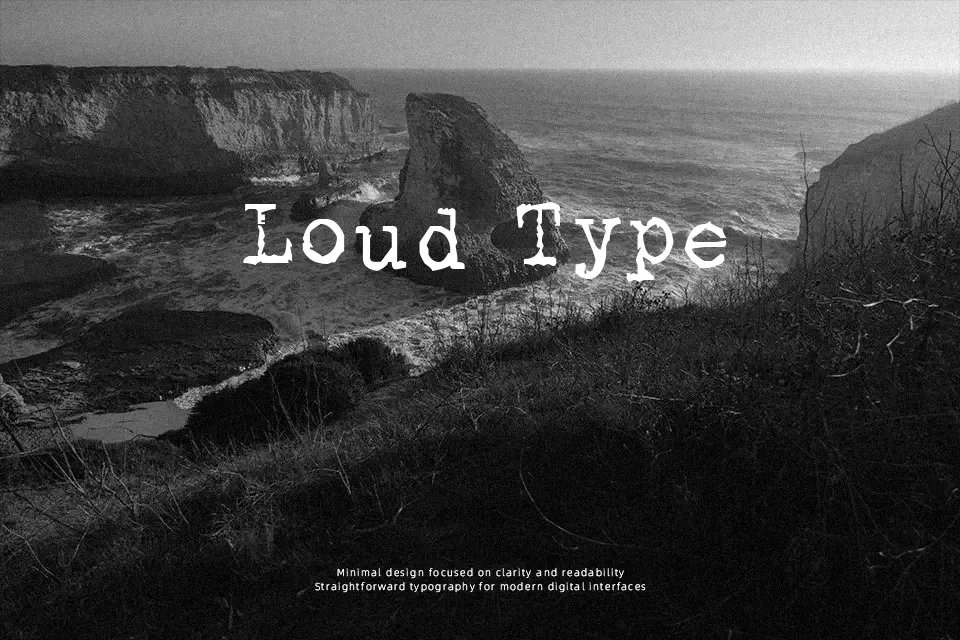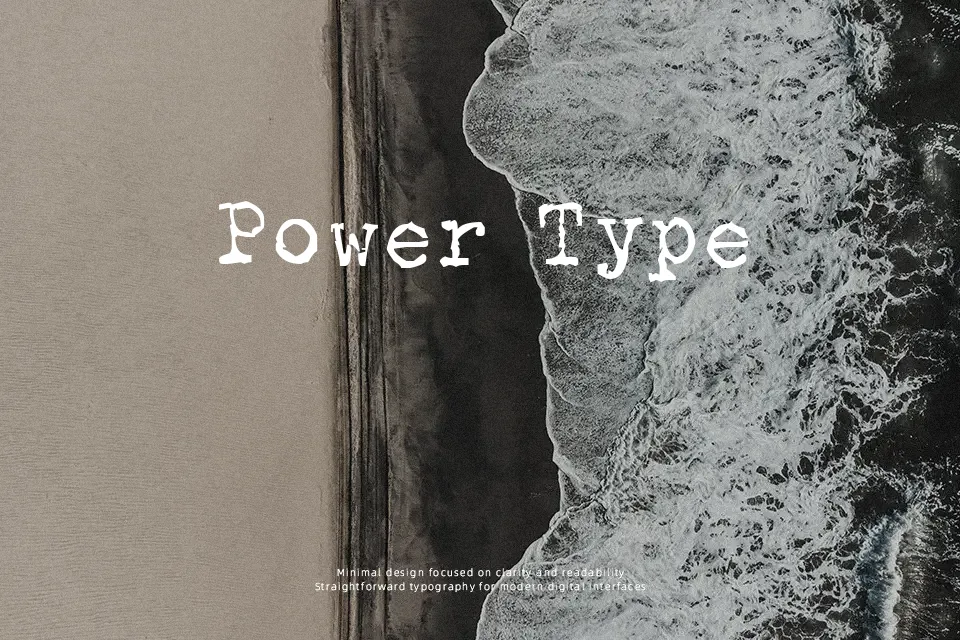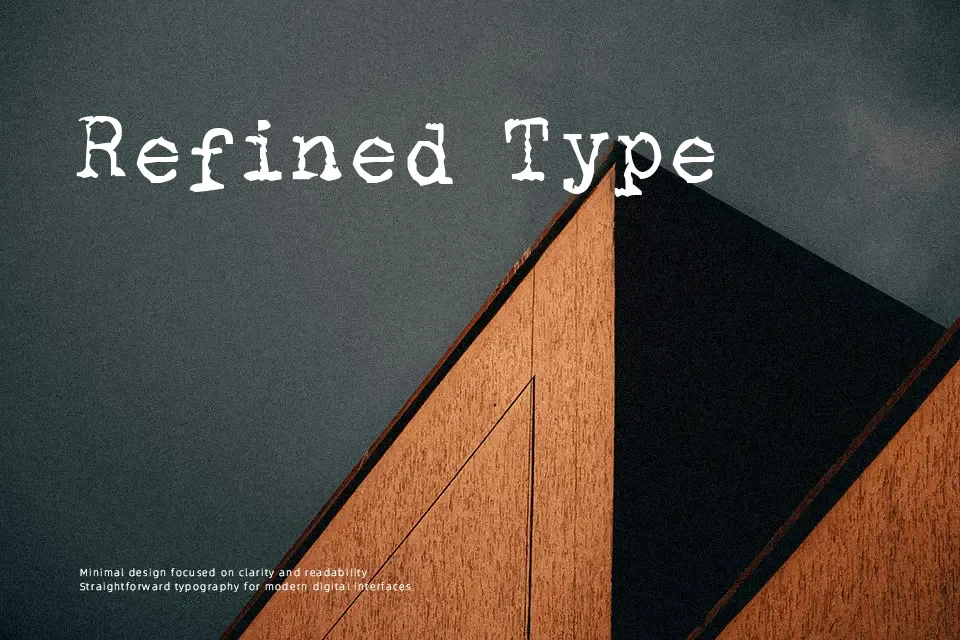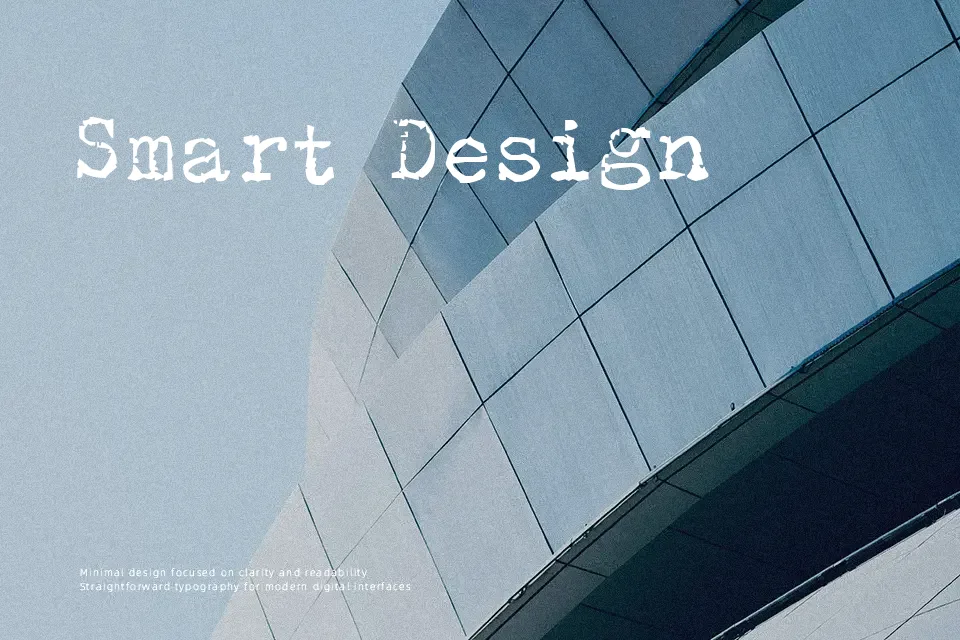
Olivetti Type 2 Font
Designed by Hernan Asorey
Olivetti Type 2 Font uses monospaced, typewriter-like letterforms with irregular edges, modest stroke contrast, and a visibly aged printed texture. The characters have generally narrow-to-normal proportions and fixed-width spacing that creates an orderly, mechanical rhythm across lines. Uppercase letters, lowercase forms, numerals, and common punctuation retain the same imperfect impression, giving short text a convincing analog feel. It works particularly well for titles, quotations, labels, and poster copy where texture is part of the message. The roughened details are less comfortable in small sizes, and continuous reading can feel visually busy.